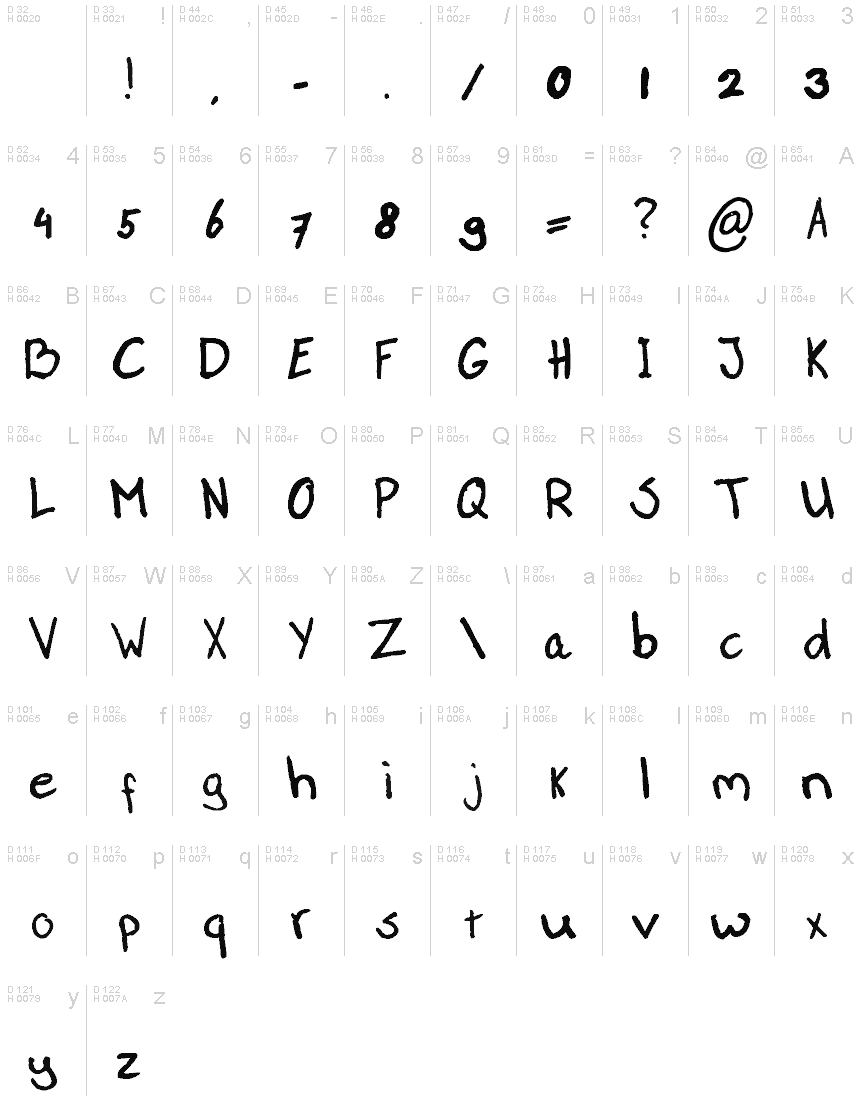
Paasse Handwriting
Paasse Handwriting is a captivating font that exudes a sense of personality and charm. Its organic, flowing strokes evoke a handcrafted, artisanal aesthetic, making it an alluring choice for projects seeking a personal, handwritten touch. The unique letterforms and varying line weights lend an organic, expressive flair, perfect for branding, editorial design, or any application where a personal, hand-lettered style is desired.
This font's versatility shines through, adapting seamlessly across a range of mediums, from print to digital. Its distinctive character and natural, imperfect quality make it an excellent selection for invitations, greeting cards, or any design that aims to convey a heartfelt, authentic tone.
Unique handwriting font!